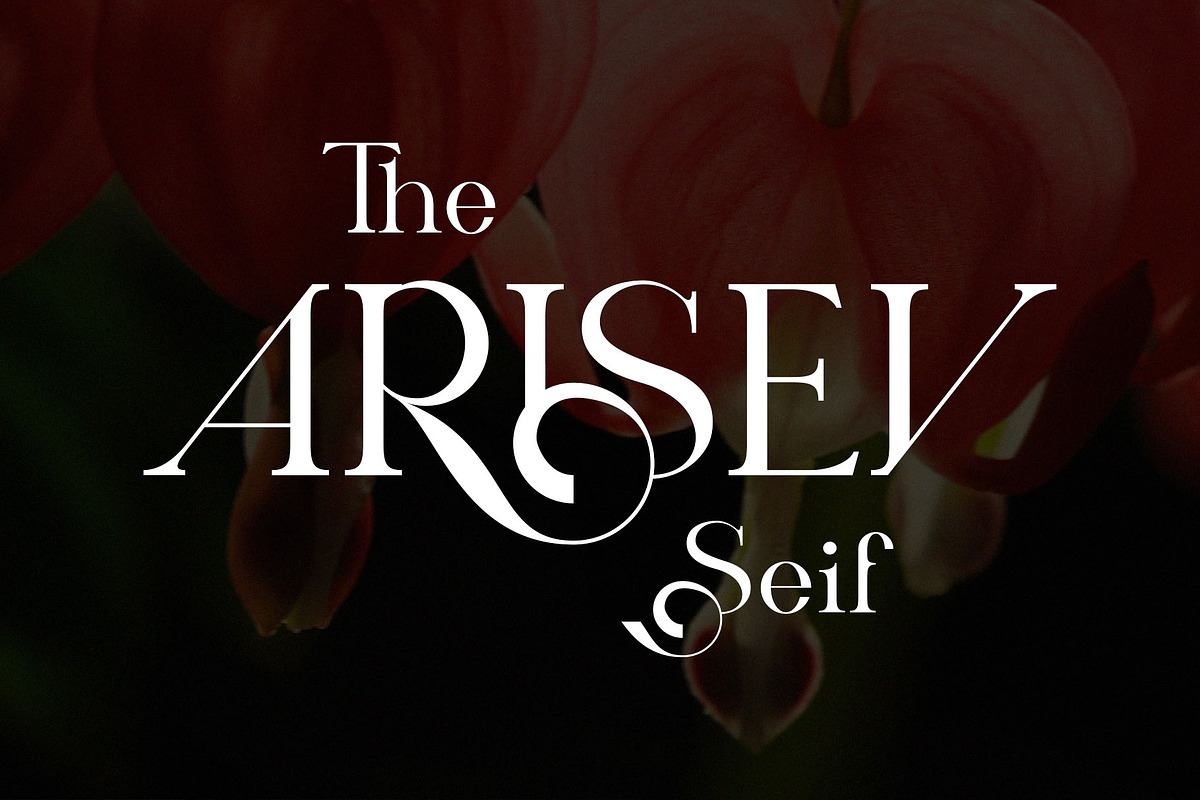
ARISEV Unique Serif Typeface Free Download
ARISEV Unique Serif Typeface Free Download is a distinctive and elegant serif font that blends artistic flair with classic structure. With its stylish curves, creative details, and high contrast strokes, ARISEV is perfect for branding, editorial design, fashion lookbooks, luxury packaging, and modern logo projects.
This typeface stands out with its unique personality—bold enough to capture attention, yet refined enough to convey sophistication. Whether you're creating high-end visuals or elegant headlines, ARISEV brings a fresh, contemporary feel to your typography.